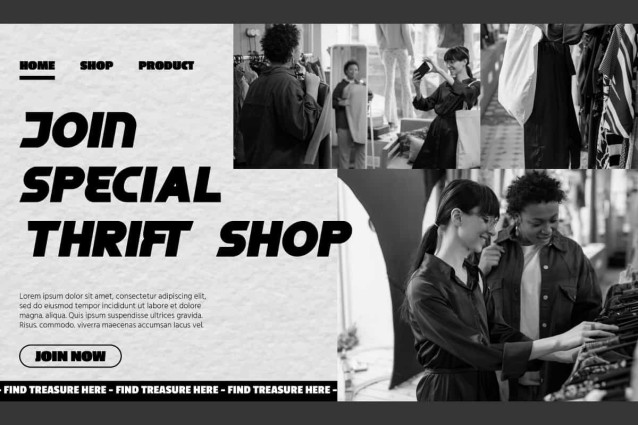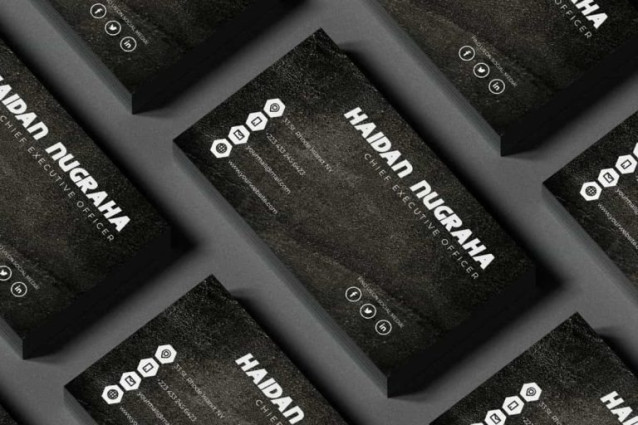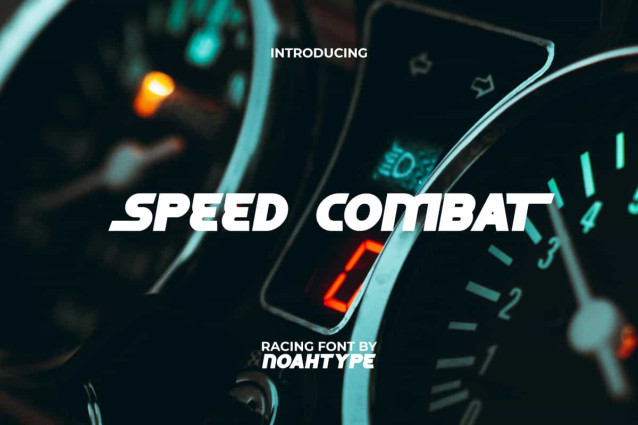
Speed Combat Font
Speed Combat Font is a modern and stylish racing display font, created by NoahType. This font has bold and easy-to-read characters so it can be paired with other types of fonts. It will be perfect for any projects, such as stationery, custom design, invitation, label, brand image, cover, menu, poster, printing, product packaging, quotes, signage, website, and many more!
Speed Combat Font includes full set of ALL CAPS for Uppercase and Lowercase Basic Characters, Numerals, Punctuation, Symbol, and Alternate. This stylish font will make your design standout and also a perfect choice for many industries, such as fashion, sports, game, racing, movie, accessories, automotive, advertising, art, café, event or festival, printing, publishing, etc.